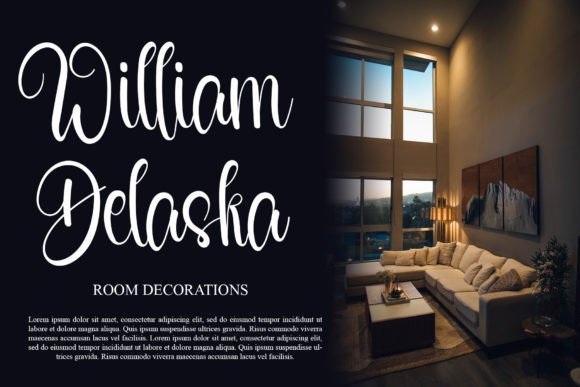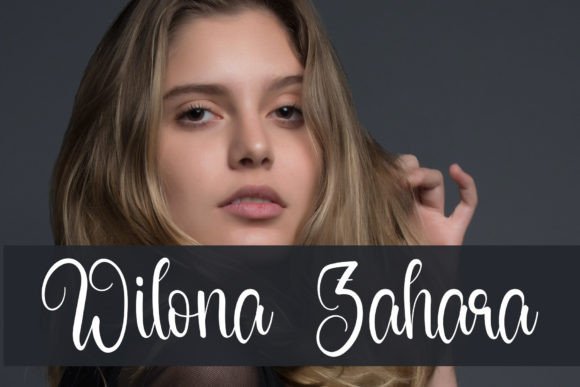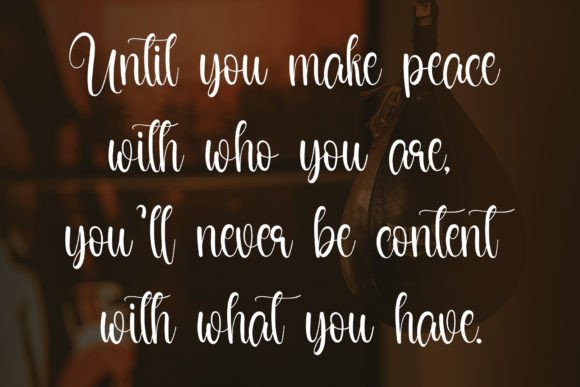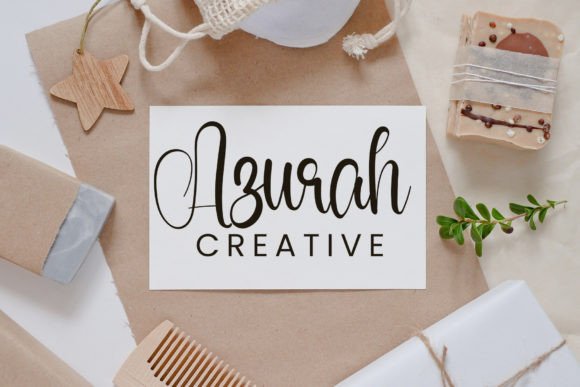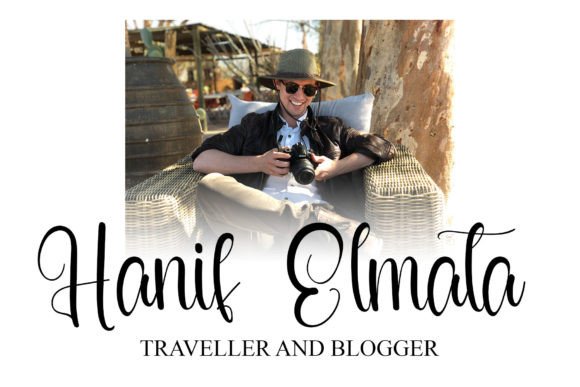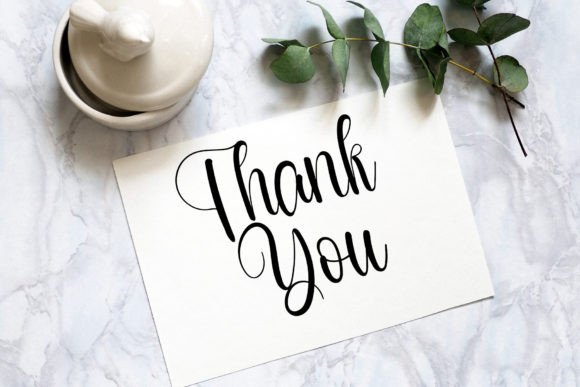
Introduction to Luckily Font
Have you ever stared at a blank page, searching for the perfect font to bring your creative project to life? I’m sure many designers can relate to that feeling of frustration and excitement as we scour the internet for the perfect design resource. But what if I told you that I’ve found a hidden gem that will make your design process a whole lot easier?
Enter the Luckily Font, an elegant and delicate handwritten typeface that’s perfect for various design needs. From logos and branding to social media posts and advertisements, this font is sure to elevate your creative project to the next level. With its PUA encoded feature, you can access all of the glyphs and alternates with ease, making it a high-quality design resource that’s a must-have for any designer.
Key Features of Luckily Font
- Transparent Background: Luckily Font allows for seamless integration into any creative project with its transparent background, making it perfect for graphic design and digital art.
- High-Quality Design: This font is designed with high-quality in mind, ensuring crisp and clear text that will elevate any design resource.
- Resolution-Independent: Luckily Font is designed to be resolution-independent, ensuring that it looks great at any resolution, from low to high.
- Perfect for Large-Scale Designs: Luckily Font is ideal for large-scale designs, such as billboards, posters, and signage, due to its high-quality and transparent background.
Honest Review: Luckily Font
I recently stumbled upon the Luckily Font, and I must say, it’s a game-changer for any creative project that needs a unique touch. With its high quality and versatility, it’s a must-have in any designer’s arsenal.
What works well: ✨ The font’s sleek design and modern aesthetic make it perfect for modern websites, social media, and digital products. It’s also incredibly easy to use, with a transparent background that allows for seamless integration with any design.
Here are some key features that make the Luckily Font stand out:
- High-quality, vector format files for crisp and clear rendering
- Transparent background for easy integration with any design
- Perfect for modern websites, social media, and digital products
However, I did encounter a few limitations: ⚠️ The font is only available in a limited number of weights, which may not be ideal for projects that require a wide range of typography options. Additionally, the font may not be suitable for very small text sizes.
Overall, I’m thoroughly impressed with the Luckily Font, and I would highly recommend it to any designer looking for a high-quality, creative resource. Its unique design and versatility make it a valuable addition to any design project.
Tips for Getting the Most Out of Luckily Font
Use Luckily Font for your social media graphics, presentations, posters, and other creative projects. It’s a great design resource for anyone looking for a high-quality, transparent background font to add a professional touch to their work.